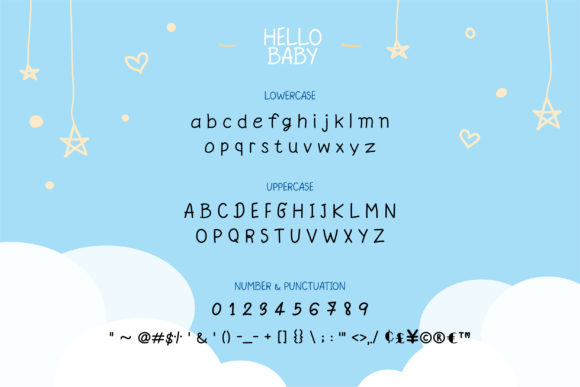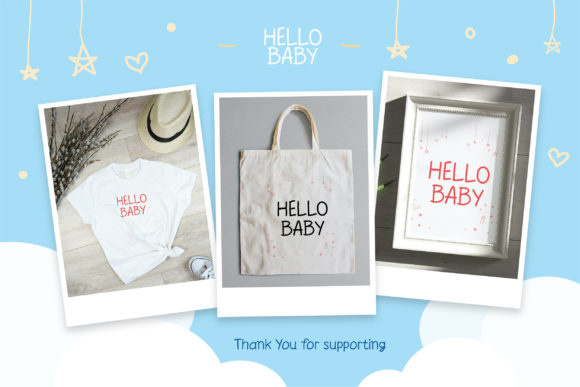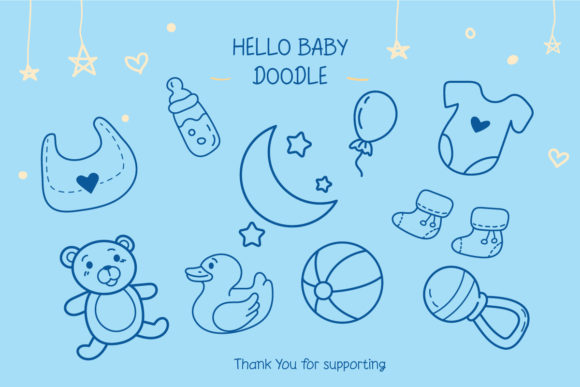
Hello Baby Font: The Ultimate Handwritten Font for Creative Projects
Are you a designer, crafter, or creative enthusiast looking for a font that can add a touch of warmth and personality to your projects? Look no further than the Hello Baby Font! This lovely, cute handwritten font is designed to bring a smile to your face and a dash of whimsy to your creations. In this article, we’ll dive into the features and benefits of the Hello Baby Font, and explore how it can elevate your designs and crafts.
What is Hello Baby Font?
Hello Baby Font is a beautiful, handwritten font that comes with an extra doodle. This font is carefully crafted to resemble the imperfect, yet charming strokes of handwriting, making it perfect for a wide range of creative projects. Whether you’re working on a magazine title, book, social media post, or statement, Hello Baby Font is sure to add a touch of personality and flair.
Features of Hello Baby Font
• Cute and Lovely Design: Hello Baby Font boasts a cute and lovely design that is sure to capture the hearts of your audience. Its playful and whimsical strokes make it perfect for projects that require a touch of warmth and personality.
• Handwritten Style: This font features a beautiful, handwritten style that is reminiscent of handwritten notes and letters. Its imperfections and quirks make it feel more human and relatable.
• Extra Doodle: Hello Baby Font comes with an extra doodle, which can be used to add an extra touch of whimsy and fun to your projects.
• Versatile: This font is incredibly versatile and can be used for a wide range of projects, including magazine titles, books, social media posts, statements, and more.
Benefits of Using Hello Baby Font
So, why should you choose Hello Baby Font for your creative projects? Here are just a few benefits of using this lovely font:
• Adds Personality to Your Designs: Hello Baby Font is designed to add a touch of personality and whimsy to your designs. Its playful strokes and imperfections make it feel more human and relatable.
• Enhances Readability: The clear and legible design of Hello Baby Font makes it easy to read, even at small sizes. This makes it perfect for body text, headings, and titles.
• Perfect for Branding and Marketing: The unique and playful design of Hello Baby Font makes it perfect for branding and marketing projects. It can help your brand stand out and leave a lasting impression on your audience.
• Great for Crafts and DIY Projects: Hello Baby Font is also perfect for crafters and DIY enthusiasts. It can be used to add a personal touch to handmade cards, gift tags, and other crafts.
How to Use Hello Baby Font
Using Hello Baby Font is easy! Here are a few tips to get you started:
• Experiment with Different Sizes and Styles: Don’t be afraid to experiment with different sizes and styles of Hello Baby Font. You can use it as a heading font, body text font, or even as a decorative element.
• Pair it with Other Fonts: Hello Baby Font can be paired with other fonts to create a unique and interesting look. Try pairing it with a bold sans-serif font for a striking contrast.
Hello Baby Font is a lovely, cute handwritten font that is sure to bring a touch of warmth and personality to your creative projects. Its playful strokes, imperfections, and extra doodle make it perfect for a wide range of designs and crafts. Whether you’re a designer, crafter, or creative enthusiast, Hello Baby Font is a wonderful asset to have in your font library. So why not give it a try and see how it can enhance your creations?